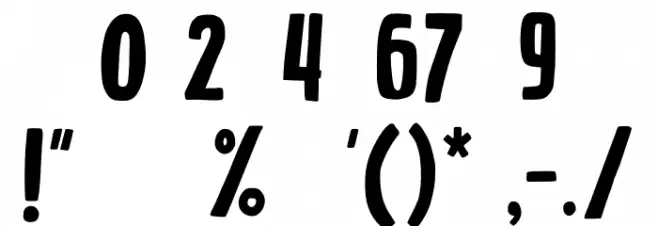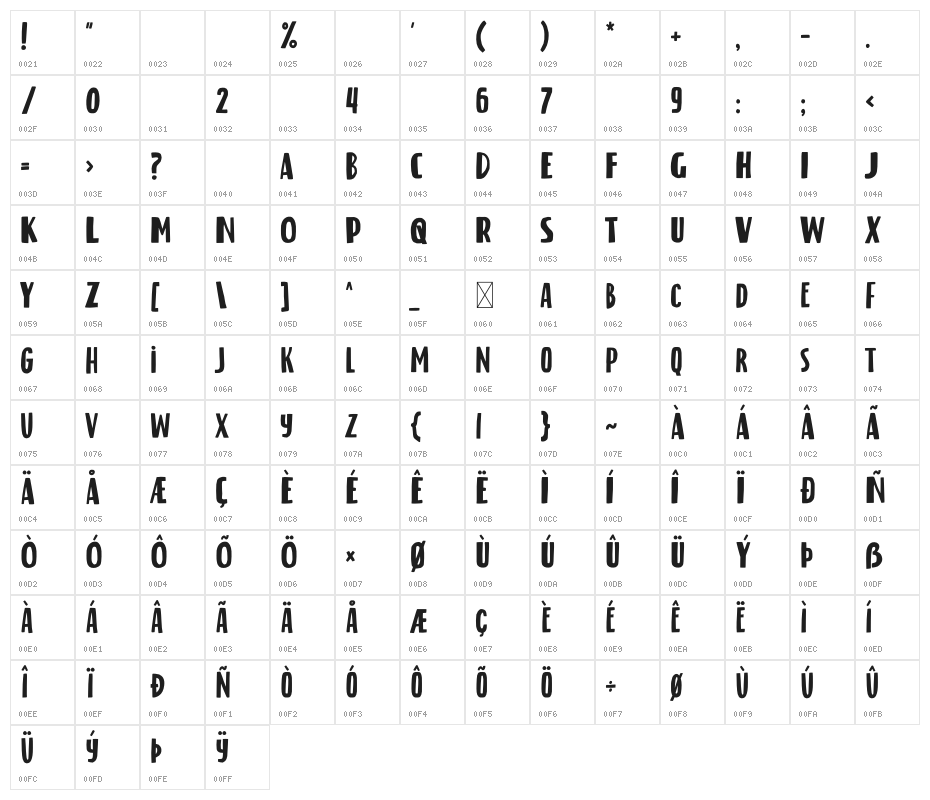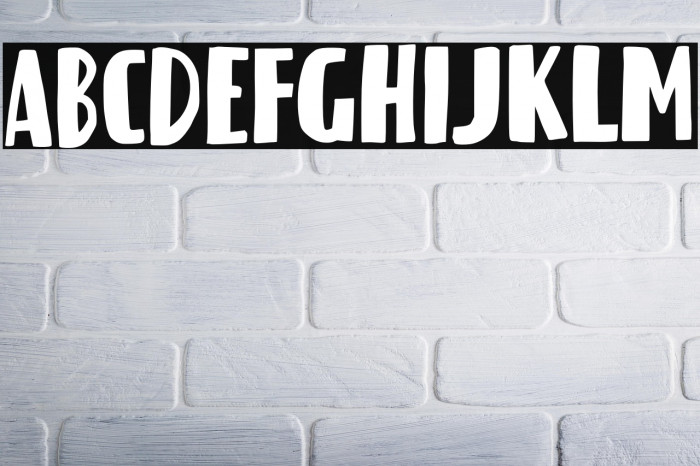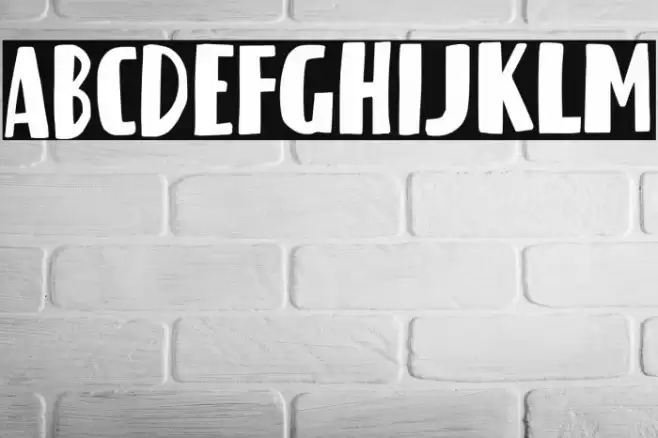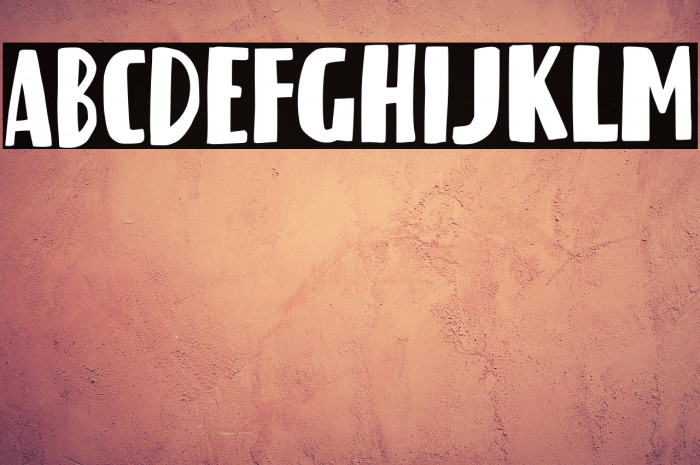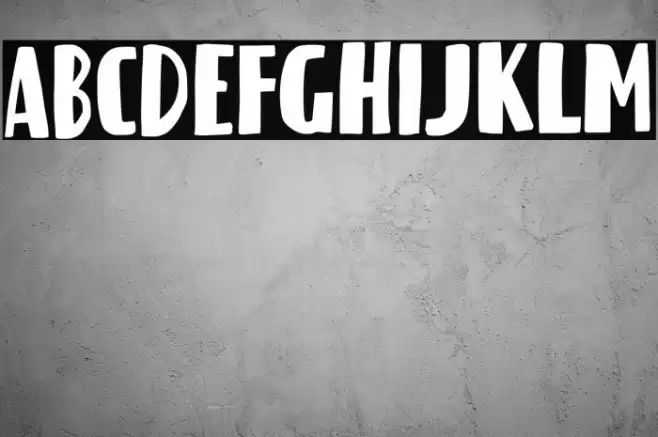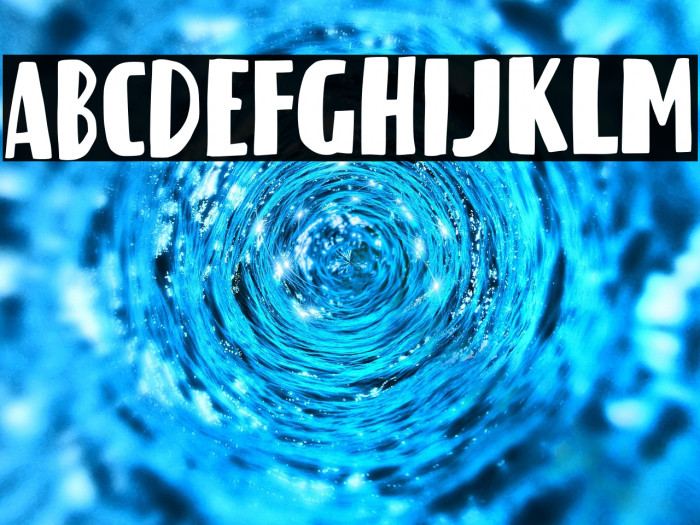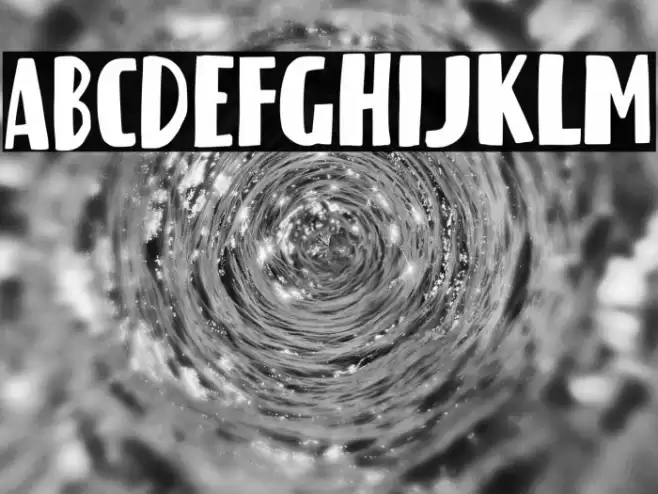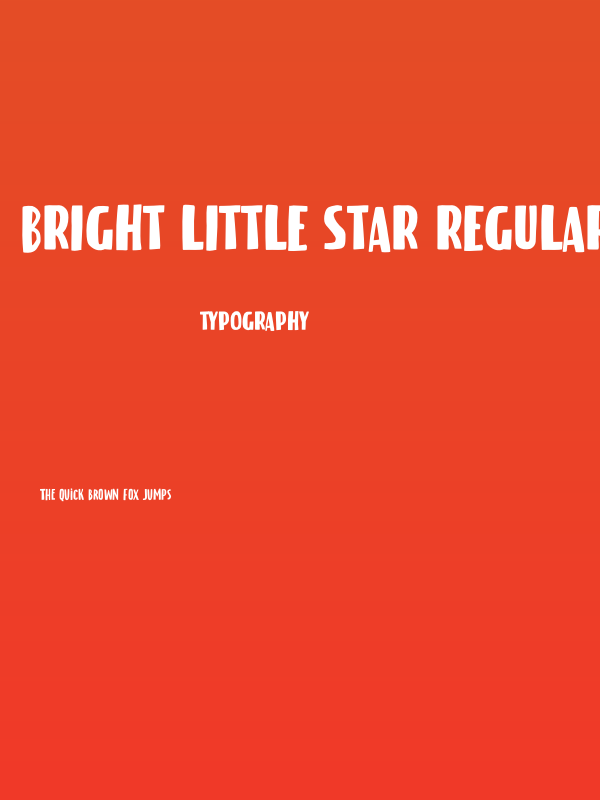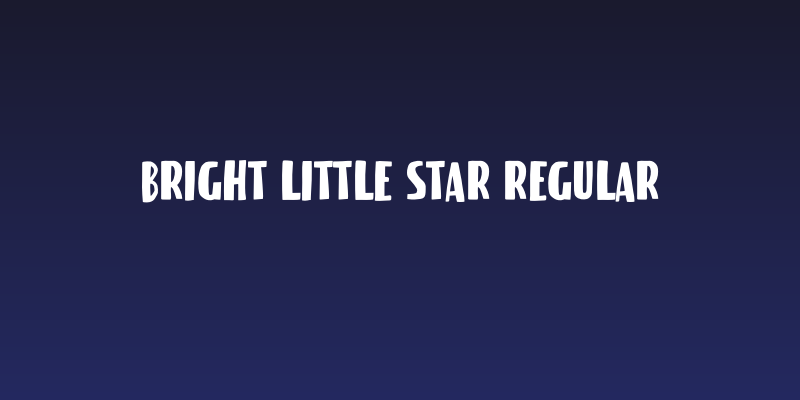
bright little star Regular Font
bright little star Regular Description
This font features a playful and bold style with a hand-drawn appearance. The characters are slightly irregular, giving it a whimsical and informal feel. The uppercase letters are tall and slightly narrow, while the lowercase letters maintain a consistent height, adding to the font's charm. The numbers and special characters follow the same playful design, making it suitable for creative projects. The strokes are thick and consistent, providing a strong visual impact. This font is perfect for projects that require a fun and engaging look.
| Proposed Projects | Ideal for children's books, playful branding, posters, and creative invitations. |